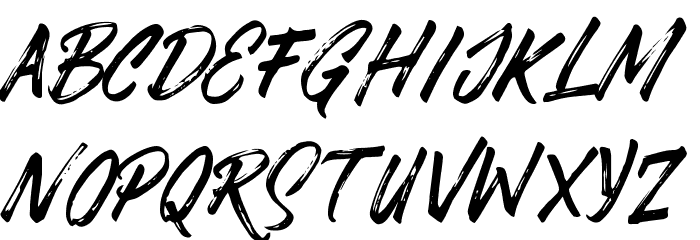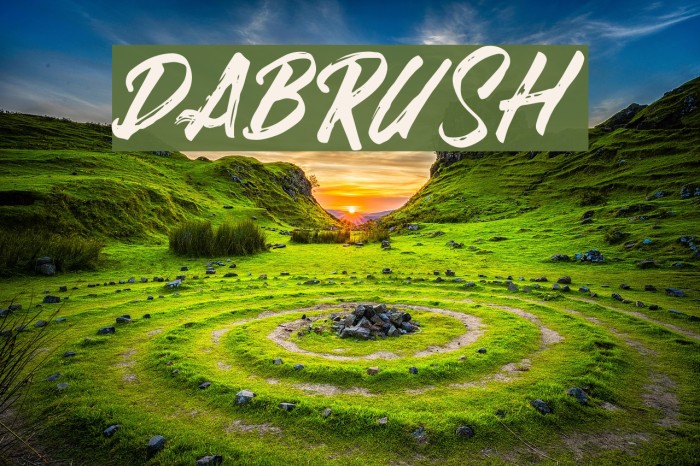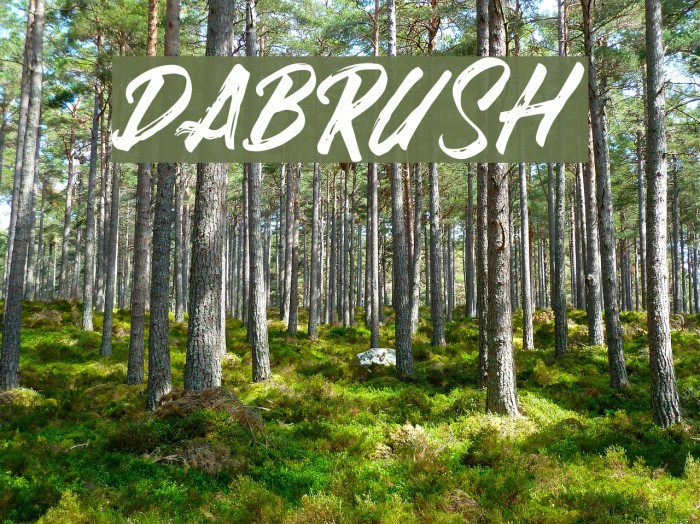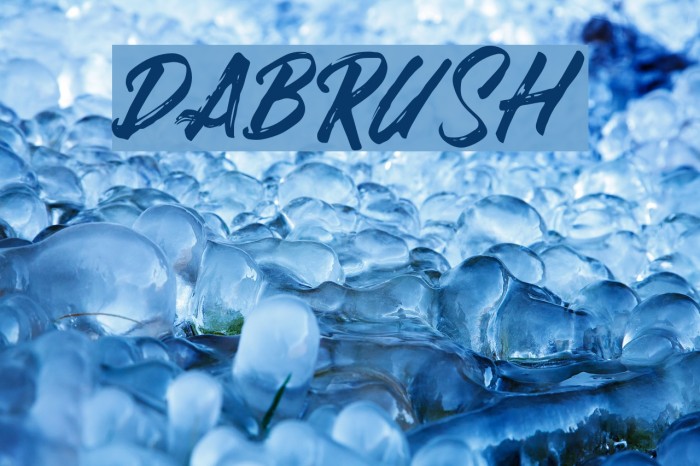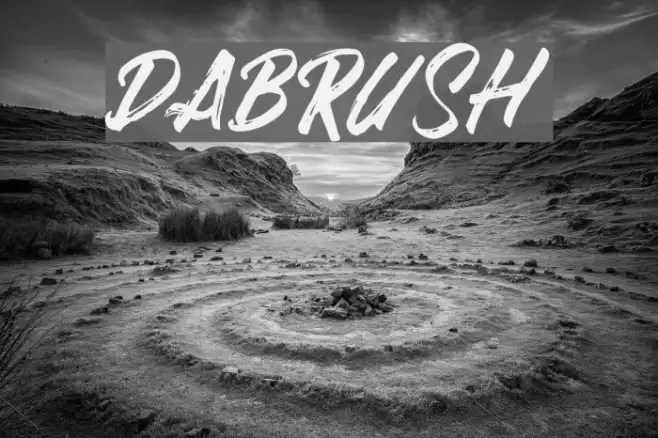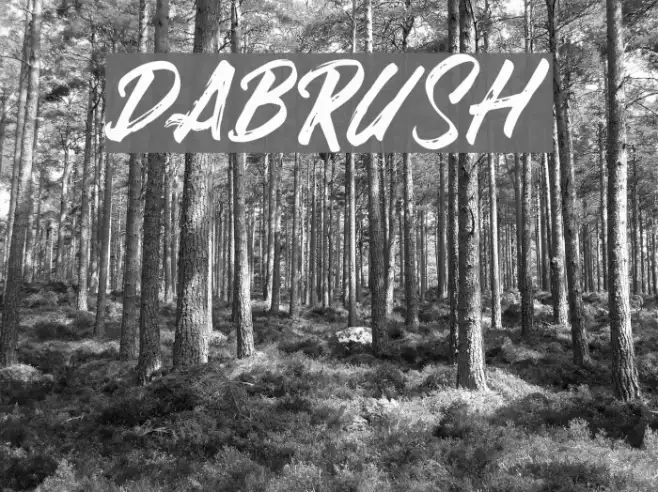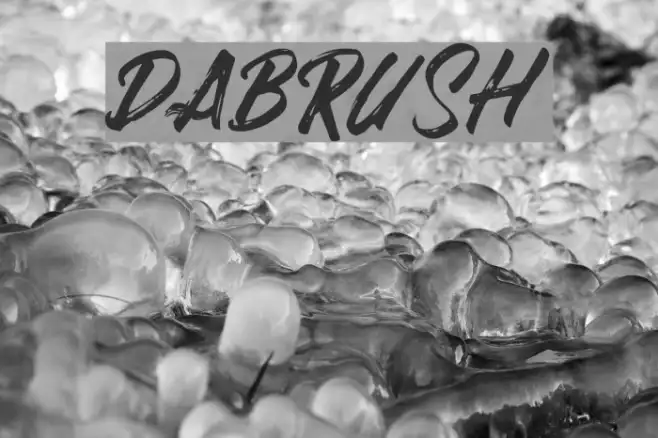
DABRUSH Font
This font features a bold and dynamic brush script style, characterized by its energetic and fluid strokes. The letters exhibit a hand-painted appearance, with varying thicknesses that create a sense of movement and spontaneity. The uppercase and lowercase letters maintain a consistent style, with some letters having distinctive swashes and flourishes that add to the overall aesthetic. The font's rough edges and textured look give it an authentic, handcrafted feel, making it ideal for projects that require a personal touch or artistic flair.
A bold, dynamic brush script with a hand-painted, textured appearance.
- Proposed Projects: Ideal for branding, posters, social media graphics, and any design needing a bold, artistic touch.